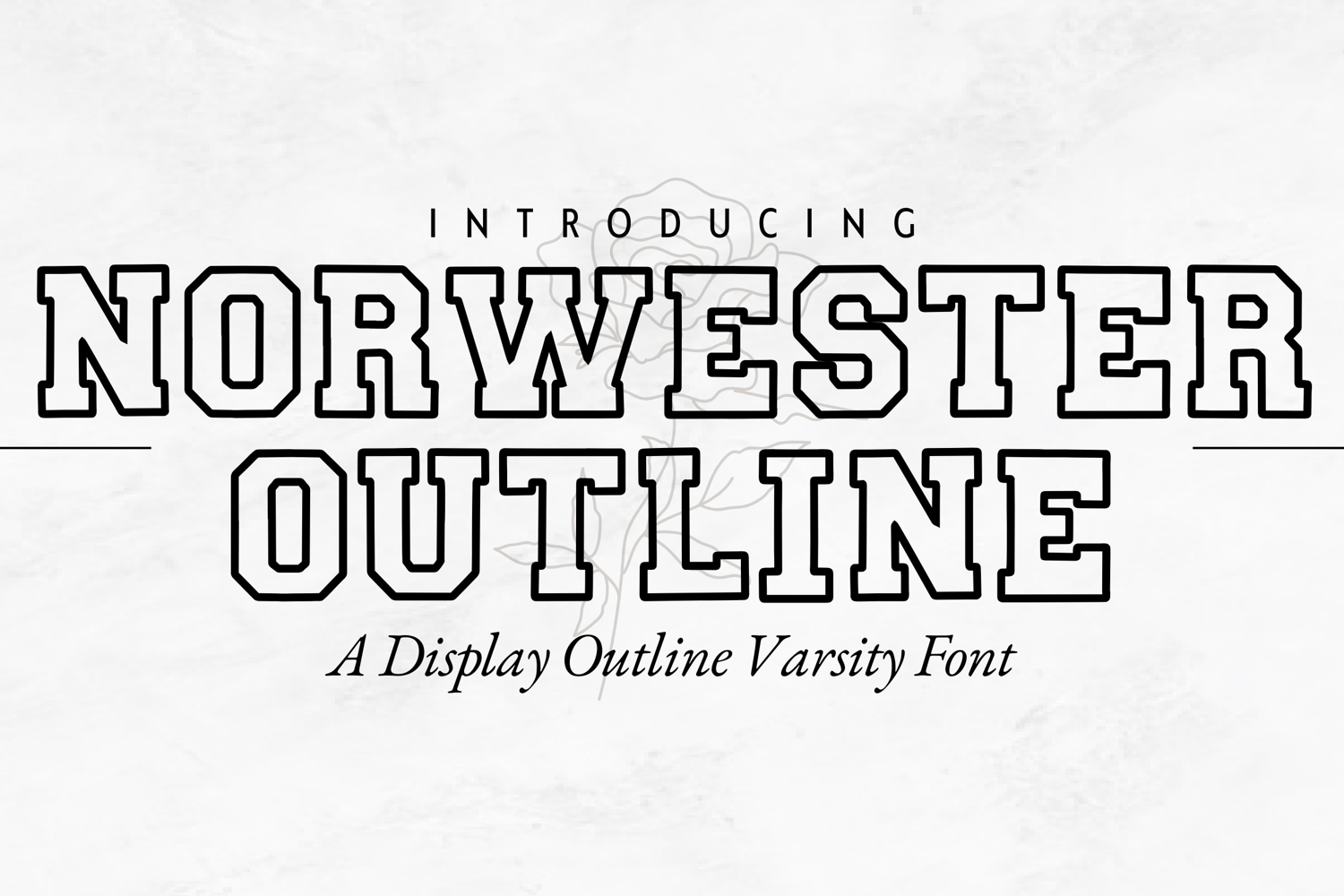
Norwester Outline - Bold Varsity Block Font
Norwester Outline
Norwester Outline is a strong, condensed outline display font inspired by varsity and collegiate lettering. With its bold structure and outlined styling, this font is perfect for creating designs that demand impact, energy, and a retro athletic vibe.
Whether you’re designing team jerseys, sports logos, event posters, or vintage branding, Norwester Outline delivers a clean and powerful look that pairs perfectly with solid varsity fonts for layered effects.
• Outline Varsity Style Typeface
• All-Caps Condensed Letters with bold block shapes
• Perfect for layering with Norwester Regular
• Sports team branding & jerseys
• College & varsity posters
• Athletic event flyers
• Retro-inspired apparel & merchandise
• Logos, packaging & bold headlines